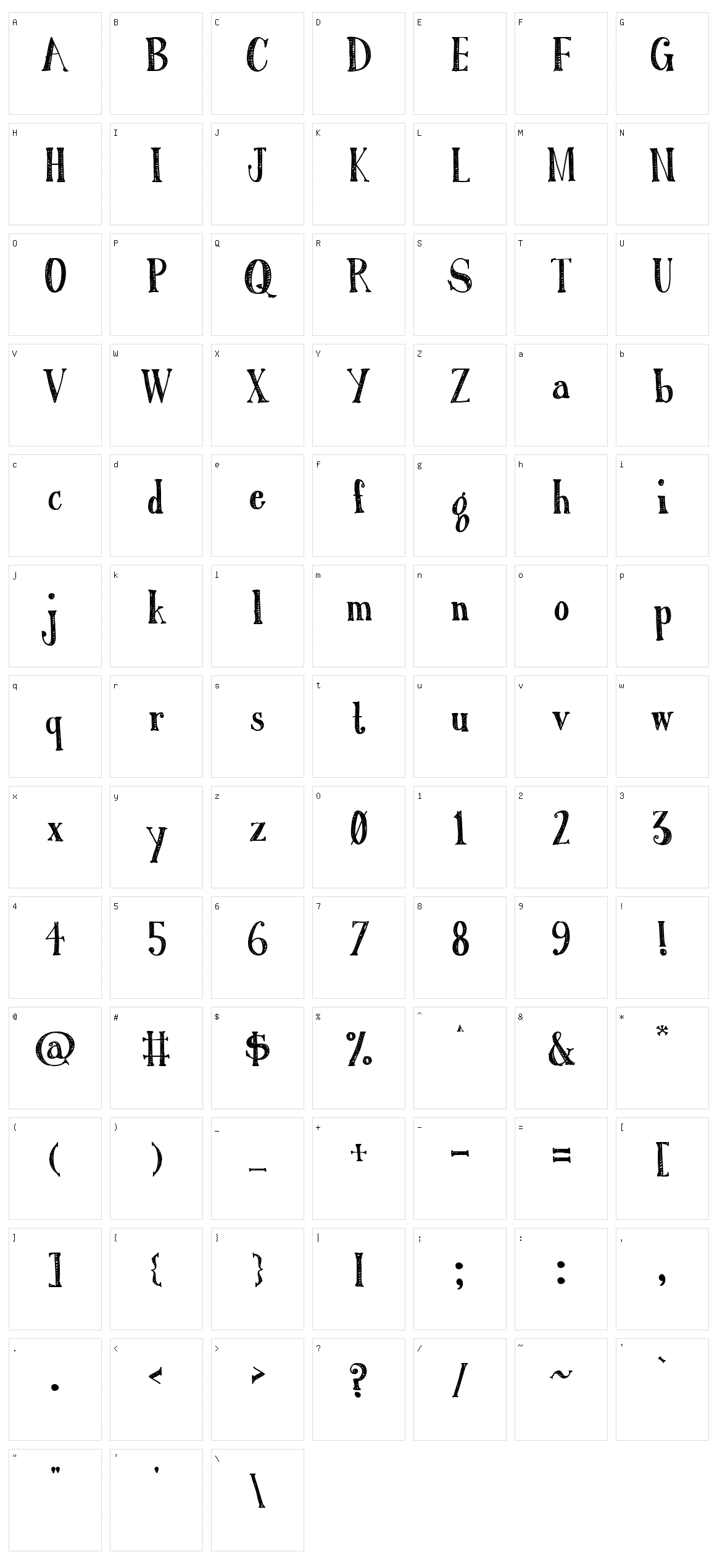
Austie Bost Roman Holiday
Description: Austie Bost Roman Holiday is a handwritten font with a sketchy feel. This is the first in a series of serifed fonts!